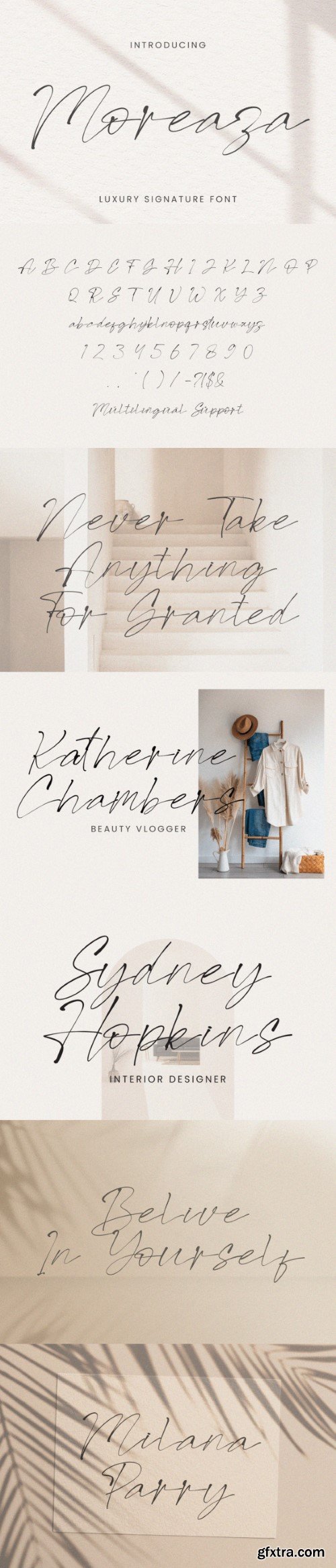
摩雷萨字体
Introducing Moreaza, an elegant signature style font. With graceful strokes and refined curves, this font adds a touch of luxury to any design. Perfect for logos, branding, and upscale projects, Moreaza exudes effortless charm and sophistication. This font is PUA encoded which means you can access all the glyphs with ease!